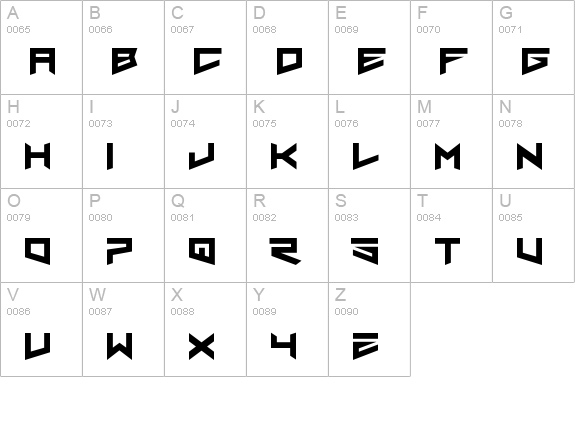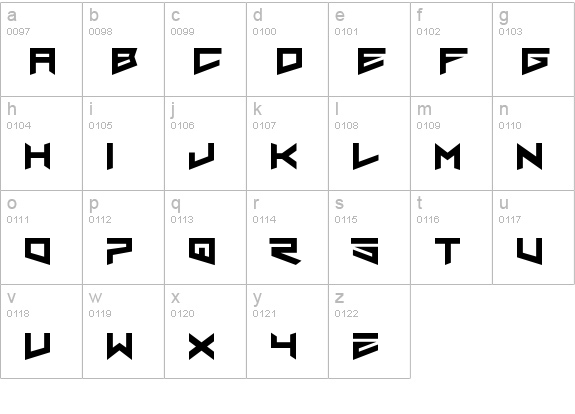
Nero Font Details
The Nero font is a stunning typeface that combines elegance and modernity, making it the perfect choice for any design project. With its sleek and sophisticated letterforms, Nero captures attention and adds a touch of sophistication to any text. Whether used for headlines, logos, or body copy, this font exudes a sense of professionalism and style. What sets Nero apart is not only its captivating aesthetics, but also its accessibility. Unlike many other fonts on the market, Nero is completely free to download, allowing designers and creatives to use it without any limitations. This means that you can add a touch of class to your projects without having to worry about breaking the bank. To access this amazing font, simply head over to FontsMarket.com, where Nero is freely available for download. FontsMarket.com is a trusted source for high-quality fonts, ensuring that you can rely on their platform to provide you with the best resources for your design needs. With Nero, you have the opportunity to elevate your designs and create something truly remarkable. Its versatility and timeless appeal make it suitable for a wide range of applications, from branding and advertising to web design and print media. Take advantage of this free font and let Nero transform your creative vision into a reality.